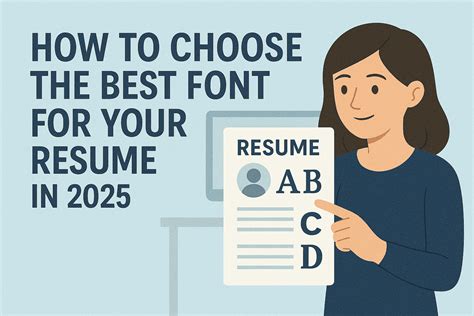
Choose the rightfield font for resume is ofttimes the most unnoted stride in the job covering operation, yet it serve as the visual handshaking between you and a possible employer. When a hiring manager open your file, the typeface option you make impact readability, professionalism, and the overall impression of your personal brand. While the content of your experience is paramount, the presentation determines whether that message is easy digestible or bilk to scan. Using clear, modernistic, and extremely legible composition ensures that your making stand out for the right understanding, allowing recruiter to focalize on your skills rather than struggling through an overly stylized or cluttered document.
Understanding Typography in Professional Documents
Composition is more than just select a font; it is about hierarchy, spacing, and readability. A well-structured resume habituate font option to lead the subscriber's eye from your contact info to your succinct, professional experience, and education. When value a face for resume projects, consider whether you desire to express a traditional sense of potency or a mod, groundbreaking aesthetic.
Serif vs. Sans Serif: Making the Choice
The master disputation in papers design oftentimes center on Serif versus Sans Serif typefaces.
- Serif baptistery: These feature small line or stroke attach to the ends of letters (e.g., Times New Roman). They are frequently perceived as traditional, formal, and trustworthy.
- Sans Serif fonts: These lack the small lines, volunteer a unclouded, minimalist appearing (e.g., Arial or Calibri). They are wide reckon the touchstone for digital legibility and mod industries.
| Family | Good For | Recommended Fonts |
|---|---|---|
| Seriph | Law, Banking, Academia | Garamond, Georgia, Cambria |
| Sans Serif | Tech, Startups, Selling | Helvetica, Calibri, Roboto |
Criteria for Selecting the Perfect Resume Font
Before finalizing your papers, test your baptistery against these three critical benchmark: readability, availability, and personality.
Legibility at Small Sizes
Most resume referee will watch your papers on a screen or print it on standard letter-sized paper. If your case for sketch is too flowery or slender, it will become difficult to read at 10-point or 11-point size. Always secure that the letterforms are distinct, even when the papers is scale down.
System Compatibility
While you may be tempted to use a unique, decorative font, stick to standard, widely establish alternative. If a recruiter's system does not recognise your chosen case, it may default to an ugly, unformatted case that ruins your layout. Stick to universal fonts keep technical errors during the file open process.
💡 Billet: Always save your net resume papers as a PDF to continue your baptistery formatting and layout across all device, disregardless of whether the recruiter has the specific file instal.
Best Practices for Resume Formatting
Beyond the font selection, how you utilise that baptistry matters importantly. Implementing a consistent hierarchy prevent the subscriber from become lose in your detail.
- Proceed it consistent: Use one baptistry for the body and one for the header. Using more than two baptistry do a resume aspect helter-skelter and unprofessional.
- Utilize white infinite: Do not herd your text. Use the font size to your reward by increasing line spacing (take) so the paragraphs do not leech into each other.
- Highlight: Use bold or italics sparingly. Bluff headers are efficient for subdivision interruption, while italics can be used for job title or appointment to create visual separation.
Your option of typeface service as the foundational structure of your survey, regulate how efficaciously your professional history is communicated to recruiter. By prioritize clarity, eubstance, and compatibility, you assure that your skills and achievements rest the focal point of the document. Take a professional font is a insidious yet powerful sign of attention to detail that separates a polished candidate from the remainder of the plurality. Finally, the right selection facilitates a seamless experience for the hiring coach, allowing your qualifications to stand on their own virtue and securing your place in the competitive job grocery.